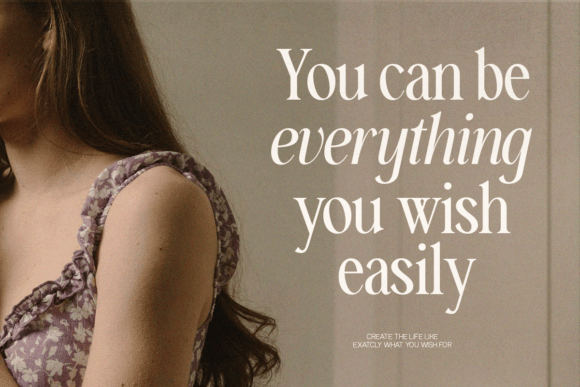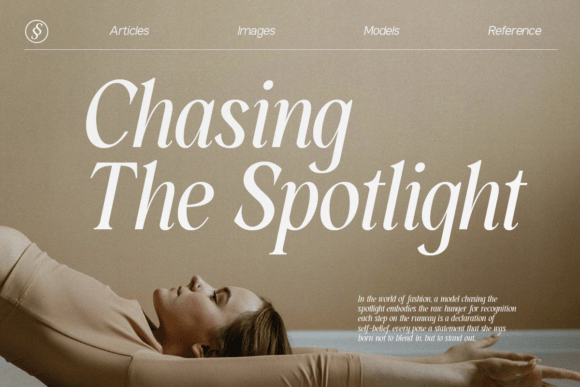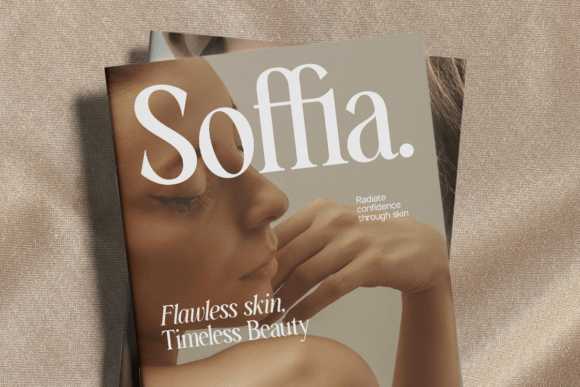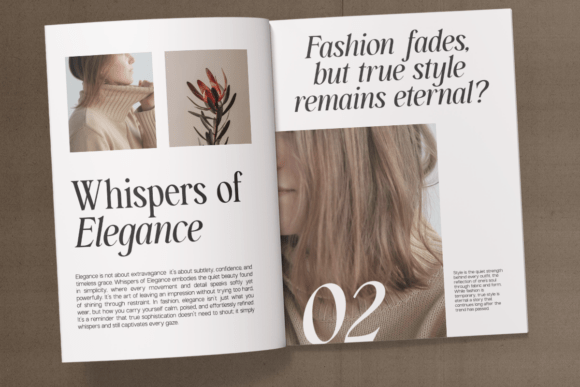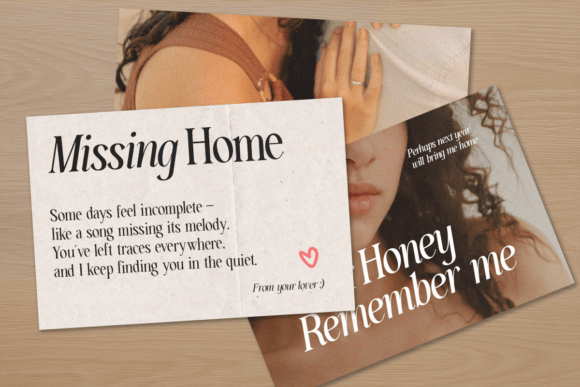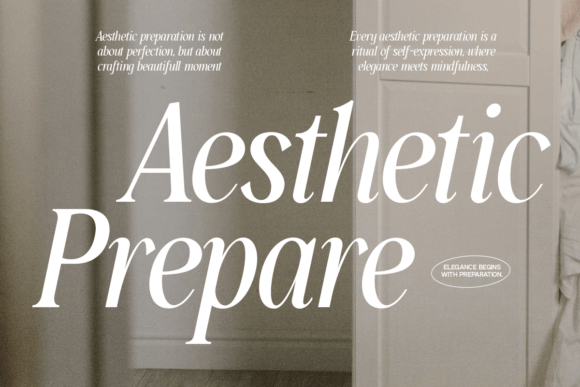
Introducing Amélie Promised: The Epitome of Luxury Typography
In the realm of typography, few fonts manage to convey the essence of luxury and sophistication as effectively as Amélie Promised. This high-contrast serif typeface is meticulously designed to marry timeless elegance with a modern, luxurious twist, making it an ideal choice for designers and crafters aiming to infuse their projects with a touch of opulence.
Design and Features
Amélie Promised stands out with its dramatically thin serifs and thick vertical strokes, creating a striking visual rhythm that is both captivating and elegant. This distinctive design feature makes it perfect for high-end branding, where making a lasting impression is paramount. The font comes with a beautiful True Italic style, which adds a layer of sophistication with its gracefully swaying lines and exquisite flow, ideal for crafting stunning logotypes and headers.
Multilingual Support and Accessibility
Understanding the global nature of design and crafting, Amélie Promised includes extensive multilingual glyph support, covering over 170 languages. This feature ensures that the font can be used in a wide array of projects, from luxury magazine titles and cosmetic packaging to wedding invitations and fashion labels, without any limitations. Furthermore, with PUA (Private Use Area) encoding included, accessing all special characters and decorative elements is straightforward, eliminating the need for additional software.
Ideal Applications
Amélie Promised’s versatile and luxurious design makes it suitable for a variety of applications where high-end typography is desired. Some of the ideal uses for this font include:
• Luxury Magazine Titles: Add a touch of elegance and sophistication to your magazine’s title pages.
• Cosmetic Packaging: Elevate your brand with refined and luxurious typography that captures the essence of beauty and elegance.
• Wedding Invitations: Make your wedding invitations unforgettable with the font’s beautiful and sophisticated style.
• Fashion Labels: Enhance your brand’s image with a font that exudes luxury, modernity, and style.
• Headers and Logotypes: Utilize the font’s swashes and elegant flow to create breathtaking headers and logotypes that leave a lasting impression.
Why Choose Amélie Promised?
Choosing Amélie Promised for your design or crafting project comes with numerous benefits:
• Ultimate Beauty and Clarity: The high-contrast design ensures that your text is not only beautiful but also clear and readable.
• Timeless Elegance: The font’s classic design ensures that your projects will remain stylish and relevant for years to come.
• Luxurious and Modern: It brings a perfect blend of luxury and modernity, making your projects stand out.
• Sophisticated Swashes: The inclusion of sophisticated swashes adds an extra layer of elegance to your designs.
Amélie Promised is more than just a font; it’s a statement of luxury, elegance, and sophistication. Whether you’re a designer looking to elevate your branding, a crafter aiming to add a touch of opulence to your projects, or simply someone who appreciates beautiful typography, Amélie Promised is an exceptional choice. Its unique blend of high-contrast serifs, extensive multilingual support, and luxurious design elements make it the perfect addition to any project that demands the highest level of typographic excellence.